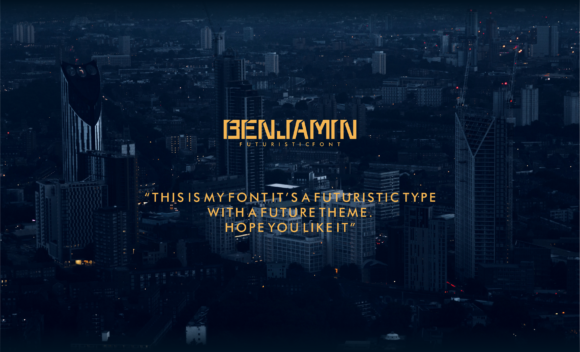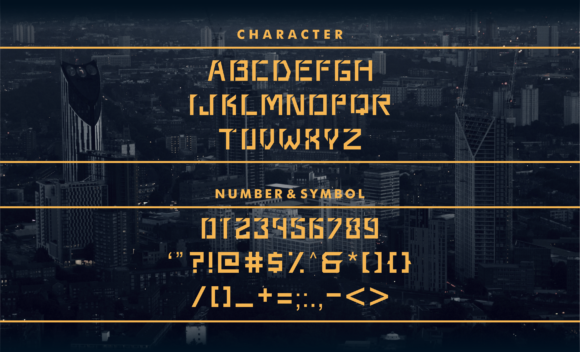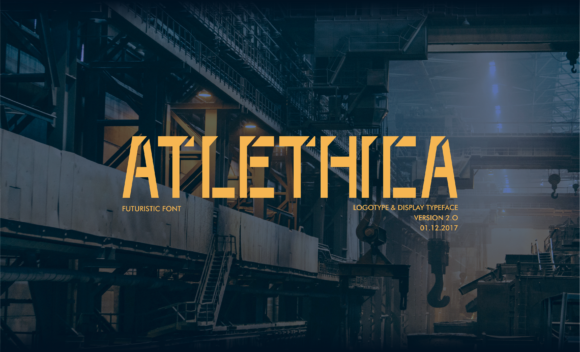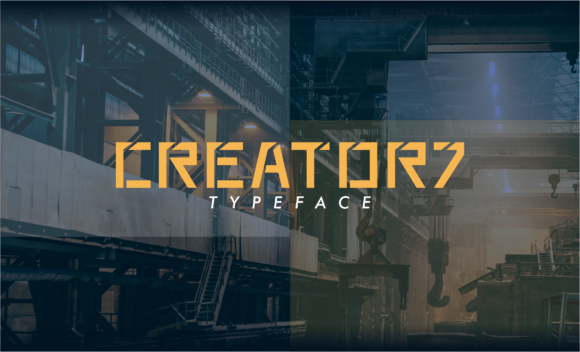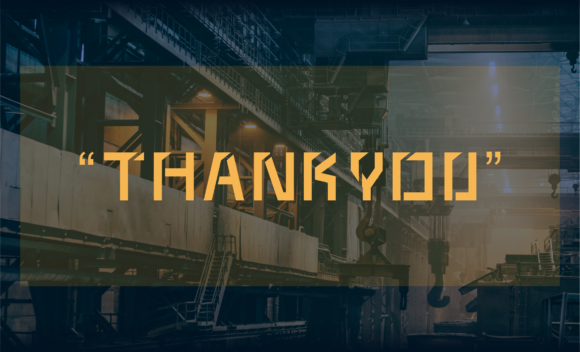
Introducing Benjamin Font: The Bold and Geometric Display Font
Are you tired of using the same old fonts in your designs? Look no further than the Benjamin Font, a bold and geometrically shaped display font that’s sure to take your creations to the next level. With its generic style, this font is suitable for a wide range of designs, making it an instant go-to choice for designers and crafters alike.
What Makes Benjamin Font So Special?
Benjamin Font is a unique and eye-catching font that’s designed to make a statement. Its bold and geometric shape gives it a modern and sleek look that’s perfect for headlines, titles, and other display text. The font’s generic style also makes it incredibly versatile, allowing you to use it in a variety of design contexts, from posters and flyers to logos and branding materials.
Key Features of Benjamin Font
- Bold and Geometric Shape: The Benjamin Font features a bold and geometric shape that’s sure to grab attention.
- Generic Style: The font’s generic style makes it suitable for a wide range of designs, from modern and sleek to traditional and classic.
- Highly Versatile: Benjamin Font can be used in a variety of design contexts, including posters, flyers, logos, branding materials, and more.
- Easy to Read: Despite its bold and geometric shape, the Benjamin Font is easy to read, even at small sizes.
How to Use Benjamin Font in Your Designs
Benjamin Font is incredibly easy to use and can be incorporated into your designs in a variety of ways. Here are a few ideas to get you started:
- Headlines and Titles: Use Benjamin Font to create bold and eye-catching headlines and titles that are sure to grab attention.
- Logos and Branding: The font’s generic style makes it a great choice for logos and branding materials, where you want a font that’s both modern and timeless.
- Posters and Flyers: Benjamin Font is perfect for posters and flyers, where you want to make a bold statement and grab attention.
- Web Design: The font is also suitable for web design, where you can use it to create bold and eye-catching headings and titles.
Tips for Getting the Most Out of Benjamin Font
Here are a few tips for getting the most out of Benjamin Font:
- Experiment with Different Sizes: Benjamin Font is bold and eye-catching, but it can also be effective at smaller sizes. Experiment with different sizes to see what works best for your design.
- Pair with Other Fonts: Benjamin Font pairs well with a variety of other fonts, so don’t be afraid to experiment with different combinations.
- Use it Sparingly: While Benjamin Font is a great font, it can be overwhelming if used too much. Use it sparingly to create emphasis and draw attention to specific parts of your design.
In conclusion, Benjamin Font is a bold and geometrically shaped display font that’s perfect for designers and crafters looking to add a touch of modernity and sophistication to their creations. With its generic style and high versatility, this font is sure to become one of your go-to choices. So why wait? Download Benjamin Font today and start creating stunning designs that are sure to grab attention!